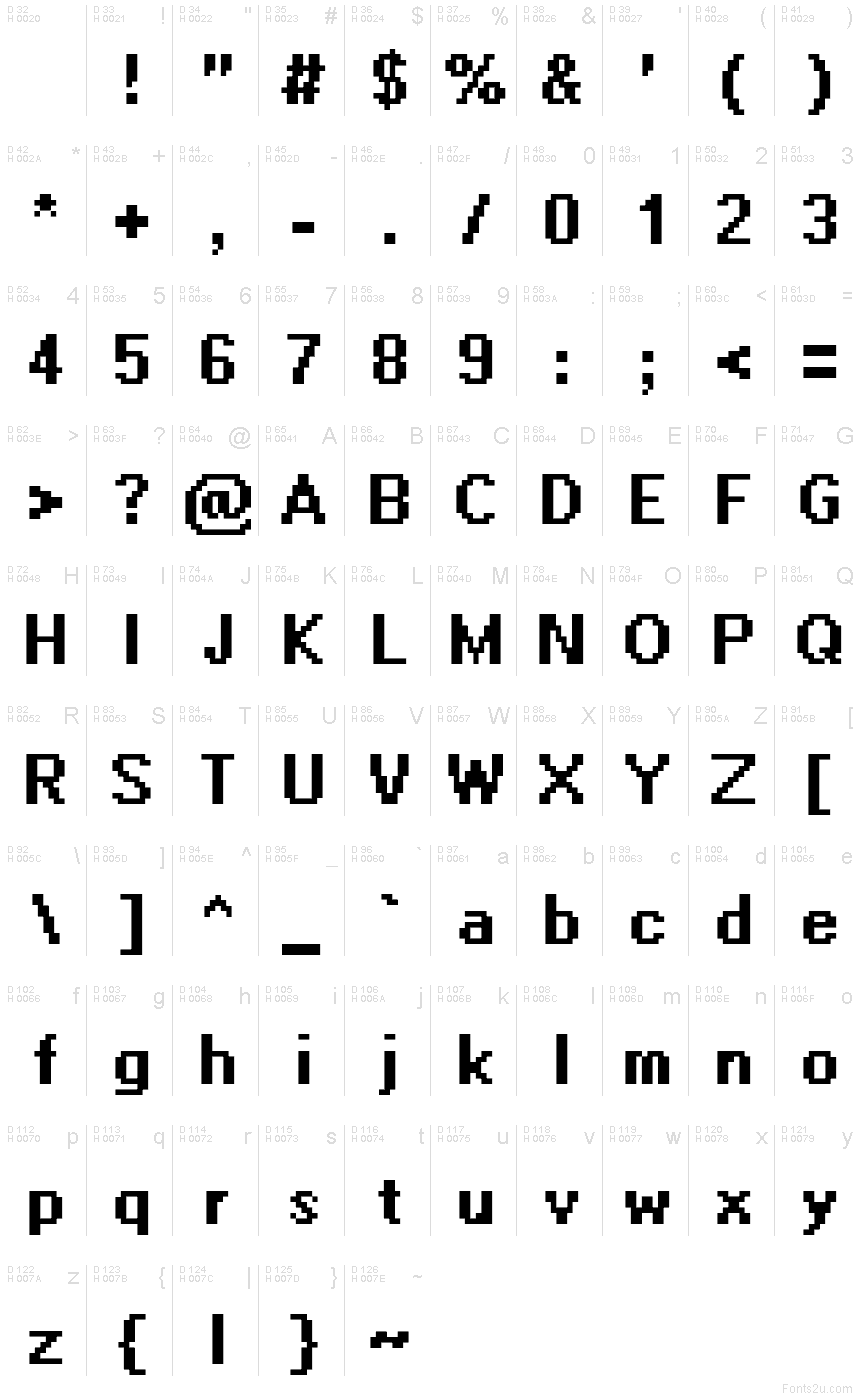
Ari-W9500 Bold Regular
Ari-W9500 Bold font is a pixelated, geometric typeface crafted by Catterio Sylt. With a digital-inspired, futuristic vibe, it incorporates blocky and minimalistic design elements for a unique visual appeal. This free techno display font stands out with its distinctive style.
Use it to create eye-catching headlines, subheadings, posters, flyers, album covers, and magazine covers. It’s excellent for website titles where each letter grabs attention and holds the reader’s gaze or in creative projects such as amateur movies or easy-going YouTube videos’ typography!
Designer description: The bold weight of Ari-W9500.